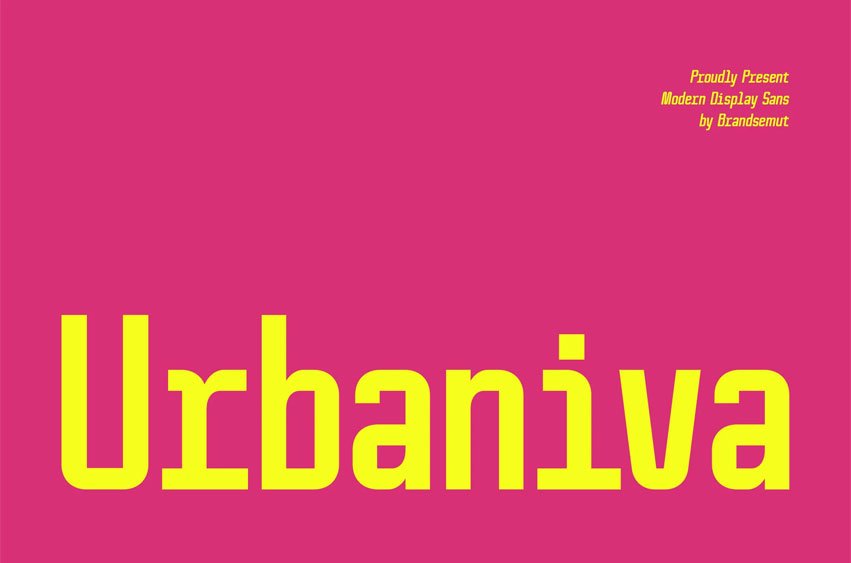
Urbaniva Font Futuristic Sans Serif. Urbaniva is a modern and simple font, best used as a display for headings, logos, branding, magazines, product packaging, and invitations. Urbaniva comes with clean lines and smooth curves giving any project an extra touch of class.